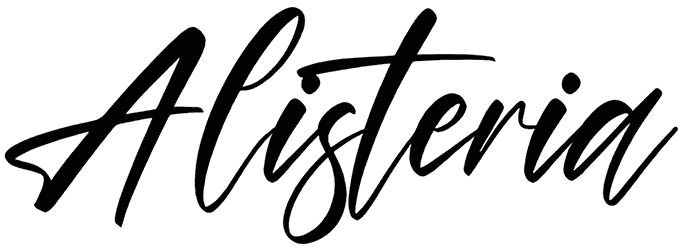
Alisteria Font
Having an organic appearance, Alisteria is a calligraphy font. The design of greeting cards, invitations, writing, and signature motifs, among other things, works well with this font despite the fact that it cannot be easily read.